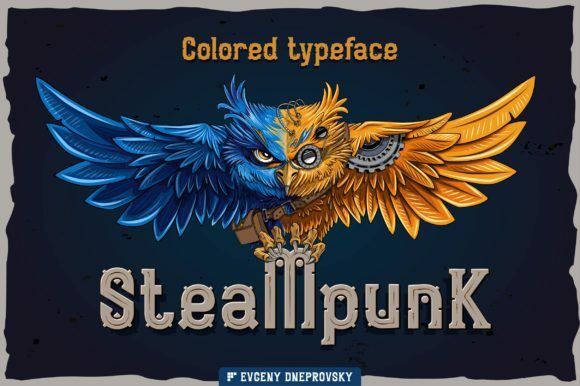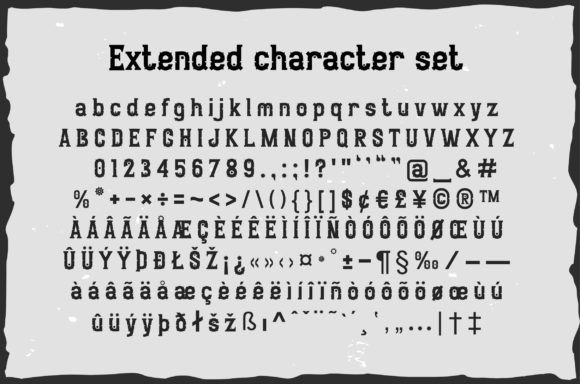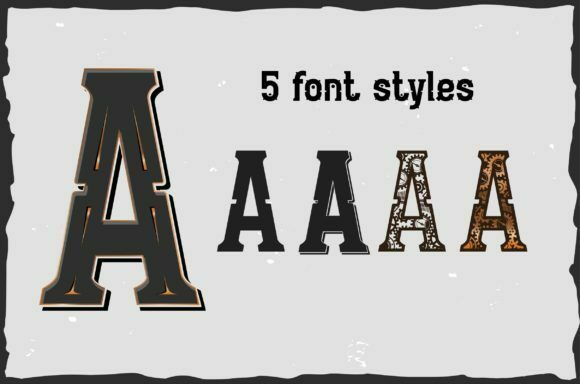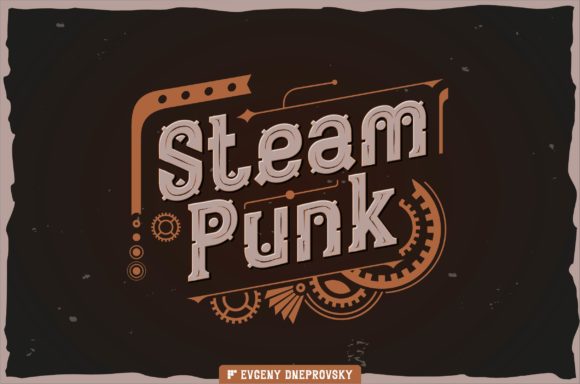
Steampunk Font
About Steampunk Font
Introducing Steampunk, an incredibly unique color font that is sure to captivate and elevate your creative ideas. Designed with meticulous attention to detail, Steampunk font embraces the essence of the steampunk aesthetic, merging Victorian elegance with industrial elements and a touch of fantasy.
Steampunk font is a true standout, offering a distinctive and mesmerizing visual experience. Its intricate design combines gears, cogs, pipes, and other mechanical elements, creating a fusion of vintage charm and futuristic flair. Each letter is carefully crafted to reflect the intricate and ornate nature of steampunk design, making it a perfect choice for projects that require a touch of adventure, mystery, or a retro-futuristic vibe.
With its bold and striking appearance, Steampunk font is ideal for various creative applications. Use it to design eye-catching logos that evoke a sense of adventure and innovation. Create stunning posters that transport viewers to a fantastical world filled with steam-powered machinery. Craft unique packaging that stands out on the shelves and captures the imagination of your target audience. The possibilities are endless with Steampunk font.
Unleash your creativity and let Steampunk font transport your designs to a world of adventure, innovation, and fantasy. Whether you’re working on personal projects, branding, digital designs, or any other creative endeavor, Steampunk font will undoubtedly make a bold statement and set your work apart.
So, embrace the unique and captivating charm of Steampunk font, and let your imagination soar to new heights. Elevate your creative ideas with this extraordinary font and watch as your designs come to life with a touch of steampunk magic.